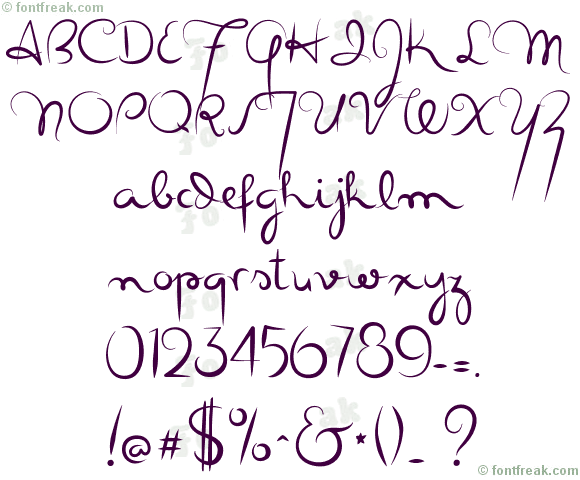
MasanaScript-1Propia
About MasanaScript-1Propia
MasanaScript-1Propia, designed by Mario Arturo, is a captivating handwritten font that boasts a unique charm and elegance. This script font features fluid strokes with a moderate stroke weight, creating a balanced appearance that is both inviting and sophisticated. The gentle contrast between thick and thin lines enhances its visual appeal, while the graceful loops and swashes add a touch of flair, making it a standout choice for various design projects. The spacing is thoughtfully crafted, ensuring readability while maintaining its artistic essence.
This font is particularly well-suited for a variety of applications, including wedding invitations that require a romantic and personal touch, restaurant menus that aim to convey warmth and hospitality, and branding materials where a friendly yet professional vibe is essential. Additionally, it can enhance the visual storytelling of movie posters or social media graphics, allowing content creators to express their brand's personality effectively. The versatility of MasanaScript-1Propia makes it a valuable asset for graphic designers and small business owners alike.